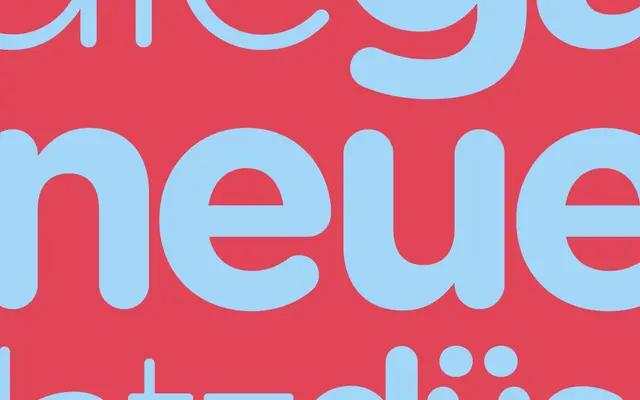
Gotham Rounded
Hoefler & Co · Tobias Frere-Jones · 2008
Gotham Rounded specimen from Hoefler & Co
A rounded sibling of Gotham from Tobias Frere-Jones, softening the geometric sans for packaging, signage and friendlier identities.
A rounded companion to Gotham by Tobias Frere-Jones, sharing the parent family's proportions and weights but trading the squared terminals for cleanly rounded ends. Five weights from Light to Black with matching italics, plus a Screensmart cut for interface use. Gotham Rounded sits where the original Gotham feels too formal: kids' brands, consumer packaging, sports leisurewear, friendlier corporate identities. It keeps the New York vernacular bones of Gotham while reading warmer and more approachable.
H&Co classify Gotham Rounded as a softened sibling of Gotham, with rounded terminals across the same proportions and weights. Aimed at packaging, signage and identities where the harder edge of Gotham feels too austere.